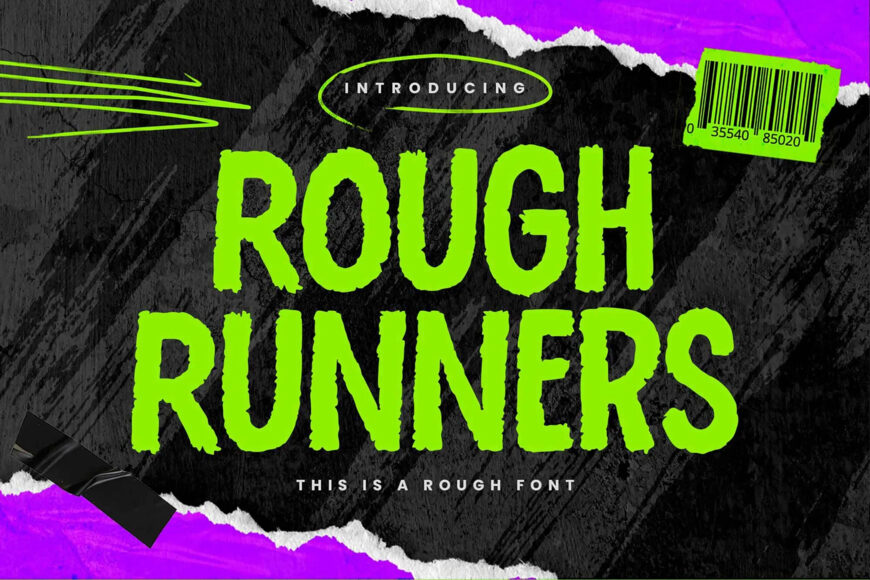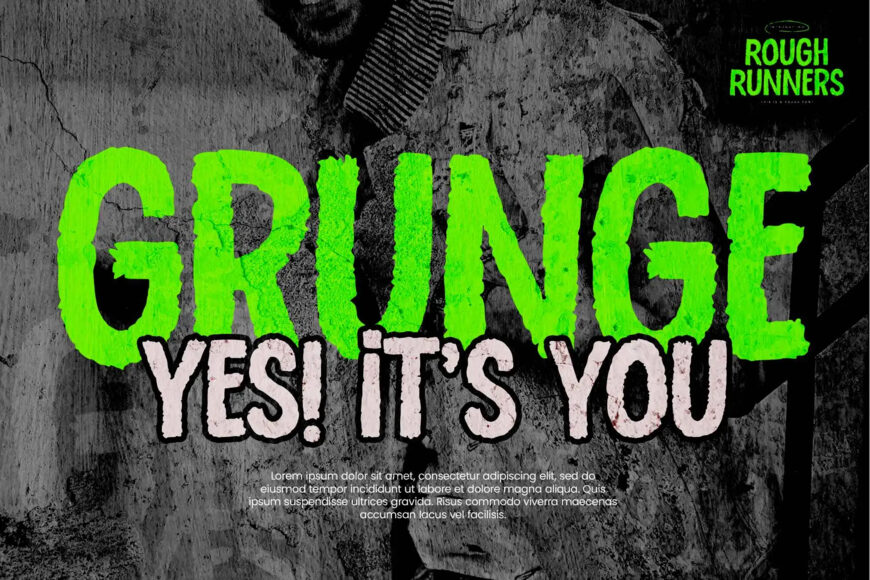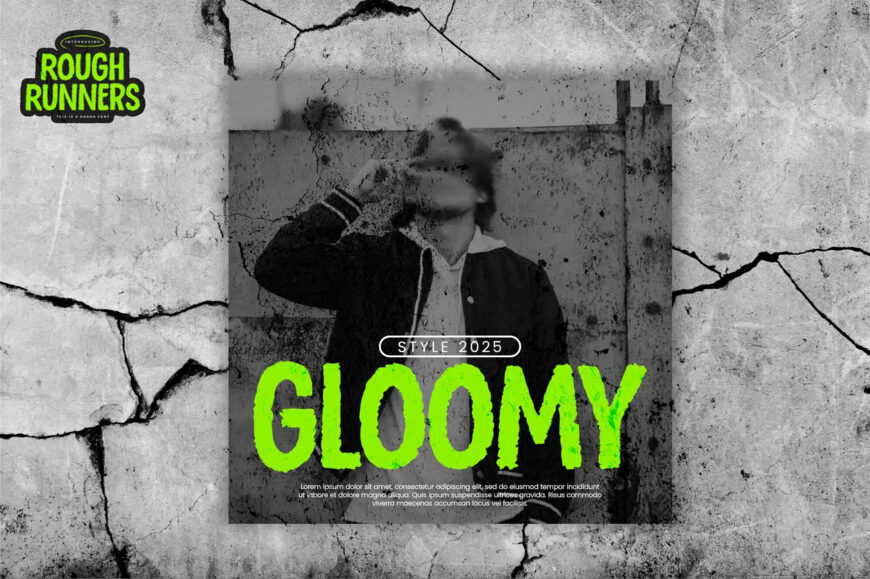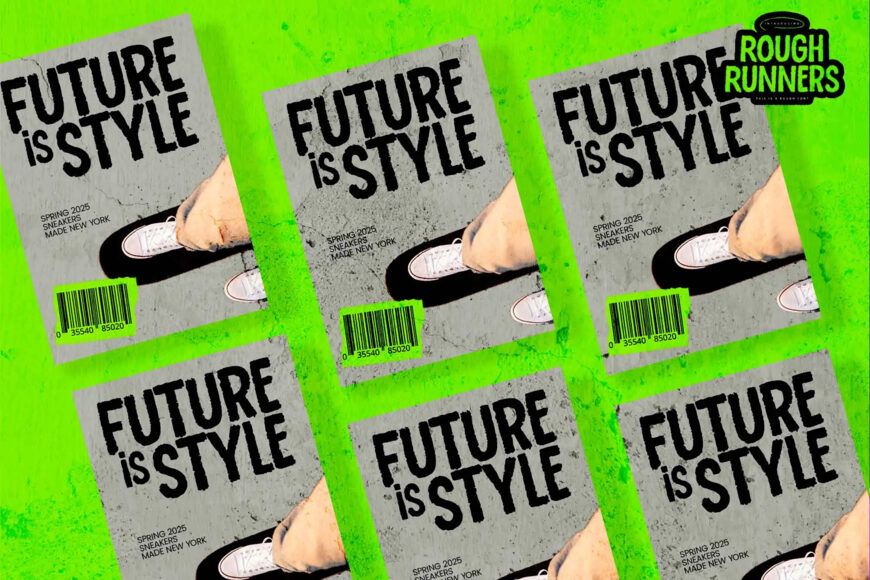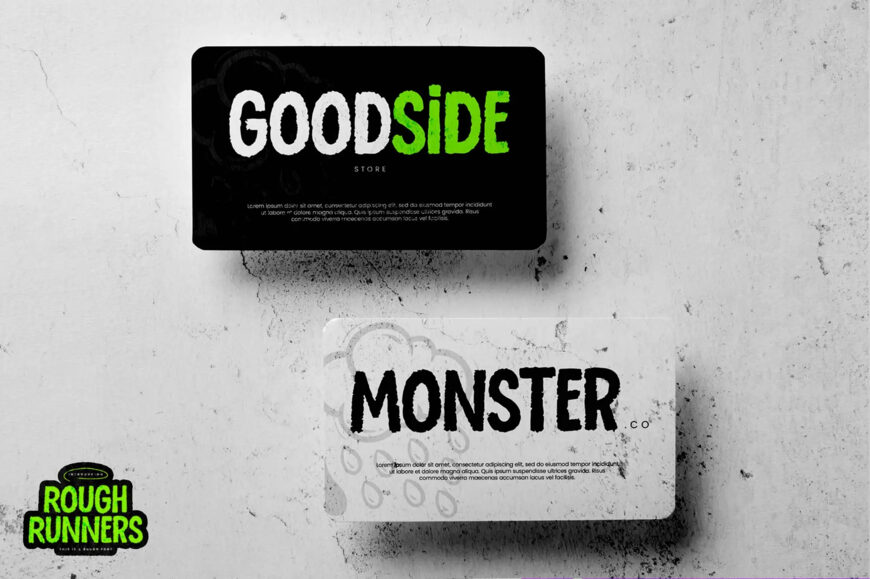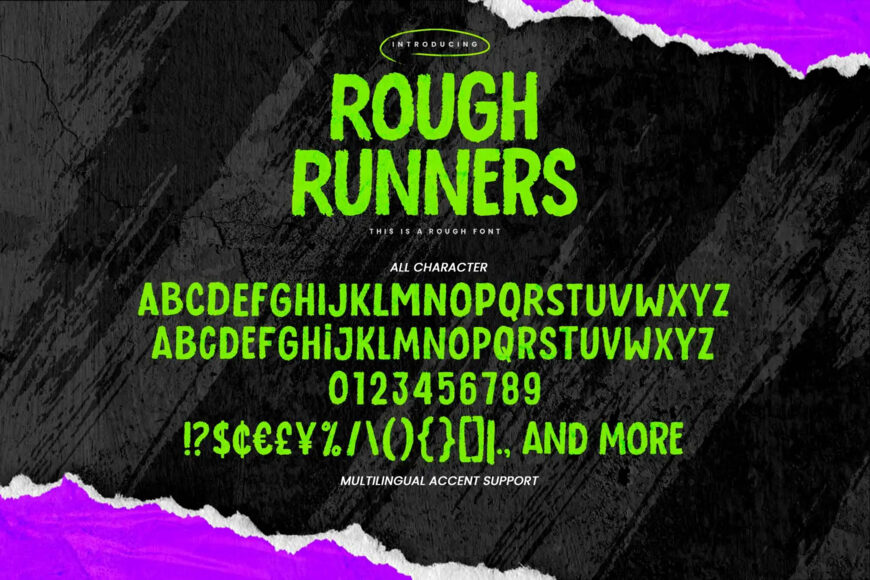
Meet Rough Runners, a textured rough font with a natural, classy character, clear details, and dramatic movement. Its distinctive handwritten feel makes it ideal for a wide range of creative projects, including logos, branding, logotypes, quotes, stationery, letterheads, posters, advertisements, labels, product packaging, and special events.